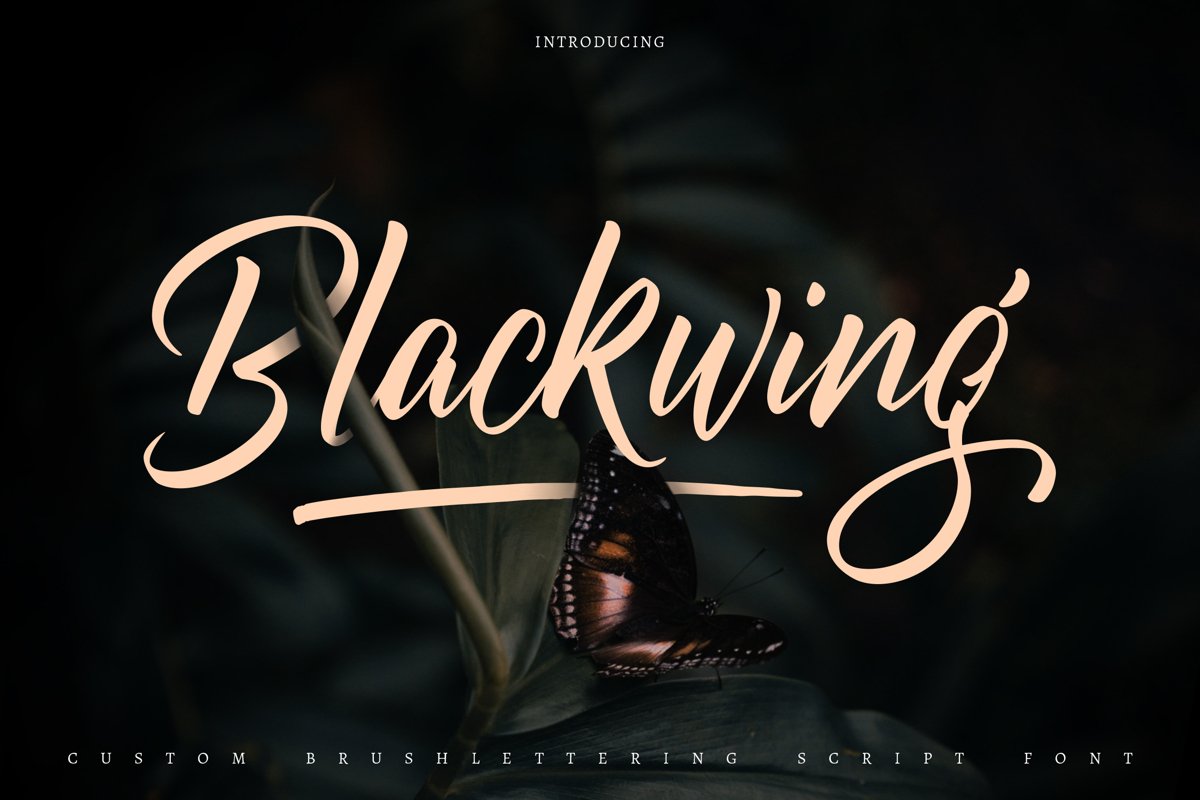
Blackwing | Custom Brush Lettering Script Font
Blackwing
**Blackwing | Custom Brush Lettering Script Font** with a calligraphy style, So beautiful on invitation like greeting cards, branding materials, business cards, quotes, posters, and more!
The alternative characters were divided into several Open Type features such as Stylistic Sets, Stylistic Alternates, Contextual Alternate, SWASH and Ligature. The Open Type features can be accessed by using Open Type savvy programs such as Adobe Illustrator, Adobe InDesign, Adobe Photoshop Corel Draw X version, And Microsoft Word. And this Font has given PUA unicode (specially coded fonts). so that all the alternate characters can easily be accessed in full
* Tons of glyphs
* Alternates and Ligatures
* **PUA Encoded Characters** - Fully accessible without additional design software.
* Fonts include **Multilingual Support**